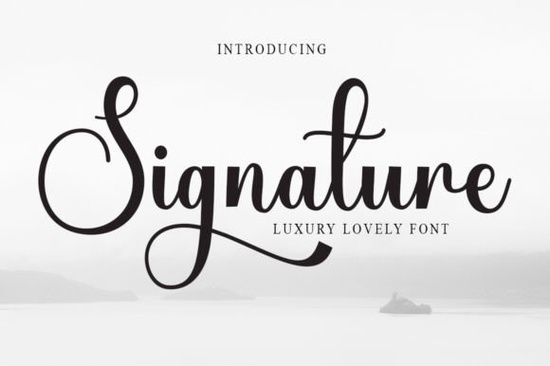
If you’ve ever needed a font that feels personal, elegant, and just a little bit romantic, Signature Font might be exactly what your next project is missing. Designed with a flowing cursive style and subtle artisanal details, it strikes a balance between sophistication and warmth making it ideal for everything from wedding invitations to boutique branding.
Unlike rigid or overly decorative scripts, Signature keeps its lines graceful but readable. That makes it especially useful if you’re creating materials meant to feel intimate or handcrafted, like thank-you cards, custom packaging, or even fashion lookbooks. The gentle curves and natural rhythm mimic real handwriting without sacrificing polish.
What kinds of projects work best with Signature Font?
This font shines when you want to convey thoughtfulness and refinement. Here are a few real-world uses where it consistently delivers:
- Wedding stationery – Invitations, place cards, and menus benefit from its soft elegance.
- Small business logos – Especially for bakeries, florists, or lifestyle brands aiming for a curated, human touch.
- Print-on-demand products – Think mugs, journals, or tote bags with personalized quotes or names.
- Social media graphics – For quotes, announcements, or seasonal promotions that need a gentle, inviting tone.
How does it compare to other cursive fonts?
Many script fonts lean heavily into either flourish or simplicity but not both. Signature manages to offer enough character to feel unique while remaining legible at smaller sizes. That’s a rare combination.
It also pairs well with clean sans-serif fonts for contrast. Try using it for headlines or short phrases while keeping body text in a neutral typeface. This approach keeps your design balanced and professional without losing warmth.
Tips for using Signature Font effectively
To get the most out of this font, keep these practical pointers in mind:
- Avoid all-caps – Cursive fonts like Signature are designed for lowercase or title-case use. Uppercase letters can break the natural flow.
- Use generous spacing – Slightly increased letter-spacing (tracking) helps maintain readability, especially in longer phrases.
- Limit usage to key elements – Reserve it for names, headlines, or short quotes rather than paragraphs of text.
- Test print quality – If you’re using it for physical products, print a sample first. Fine strokes may need slight thickening depending on your printer or production method.
Ultimately, Signature Font works best when you want your audience to feel like they’re receiving something made just for them. It’s not flashy, but it’s memorable like a note passed between friends or a name written in elegant ink on fine paper.
Quick checklist before using Signature Font:
- Confirm your project needs a personal, elegant touch
- Use it for short text only (names, headlines, quotes)
- Avoid tiny sizes or tight spacing
- Pair with a simple sans-serif for contrast